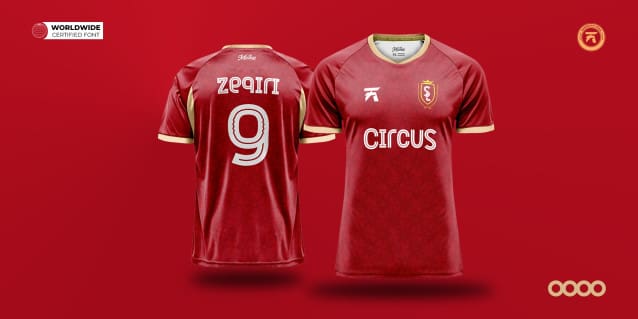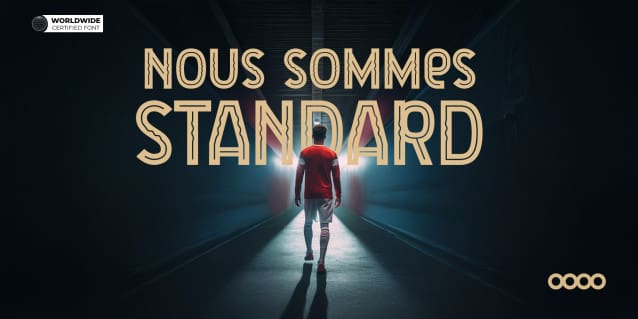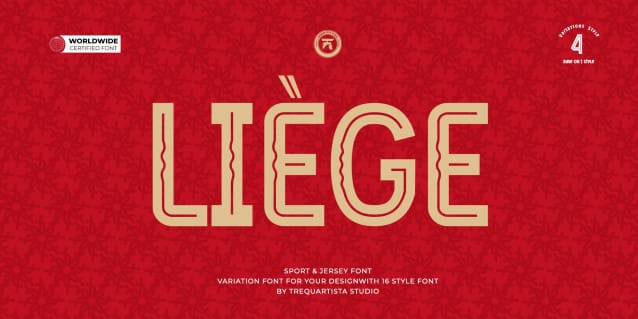
Liege Font
Liege font features a distinctive wavy inline font inspired by the Meuse River, blending modern aesthetics with classic design to create a unique vision of football. This is more than just a font—it is a work of art that captures the emotions and unforgettable